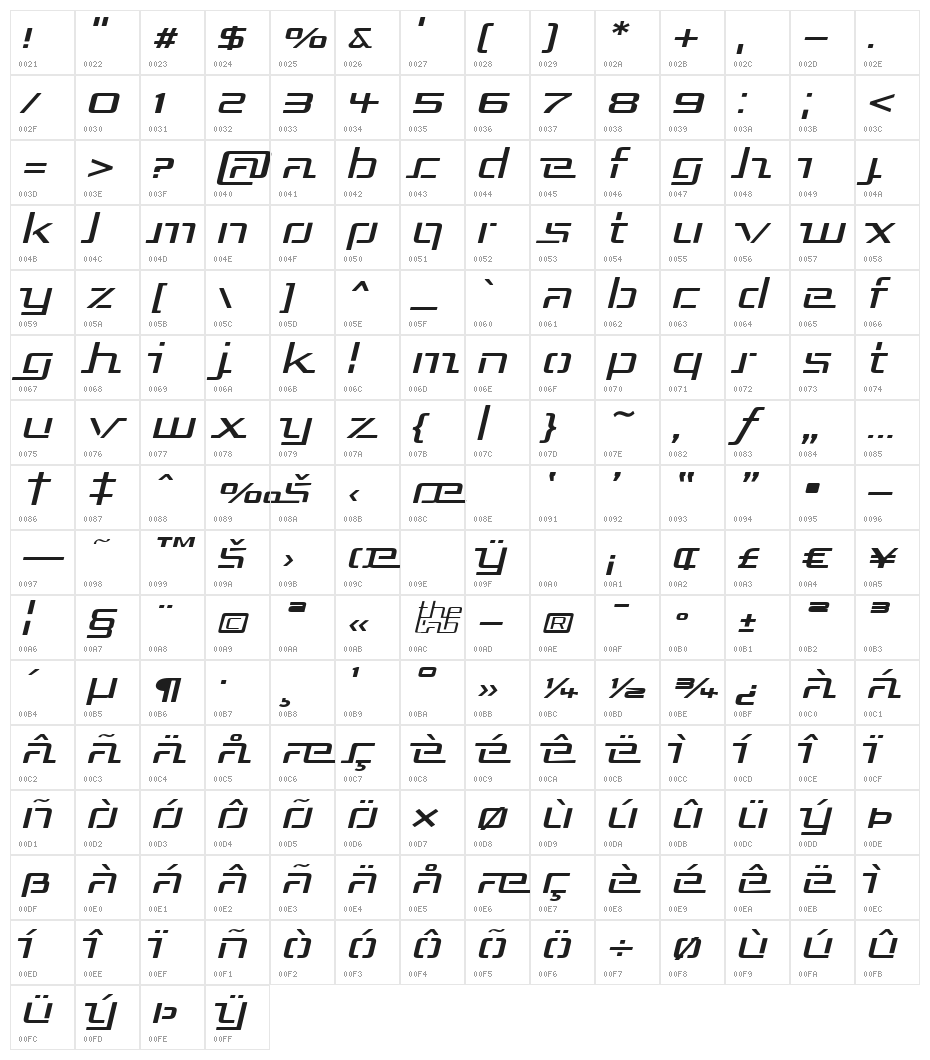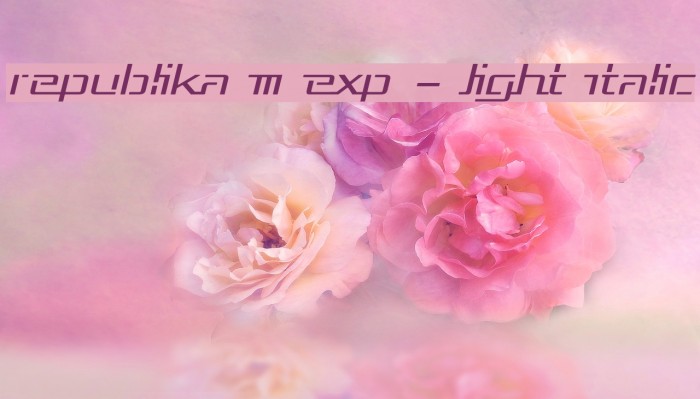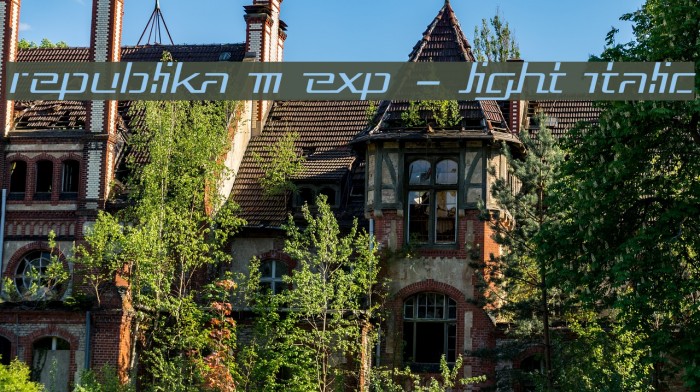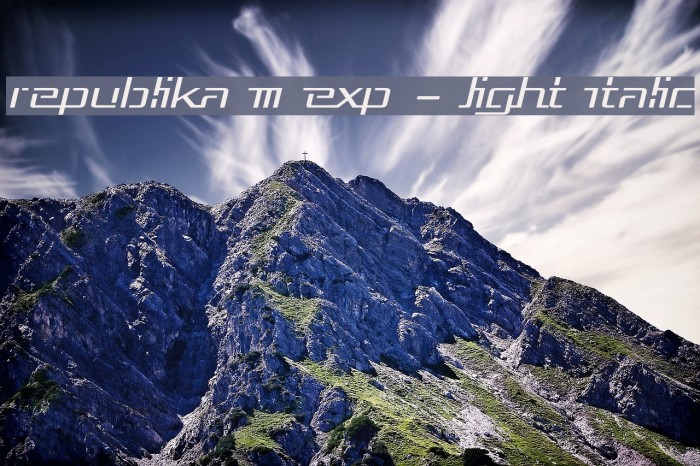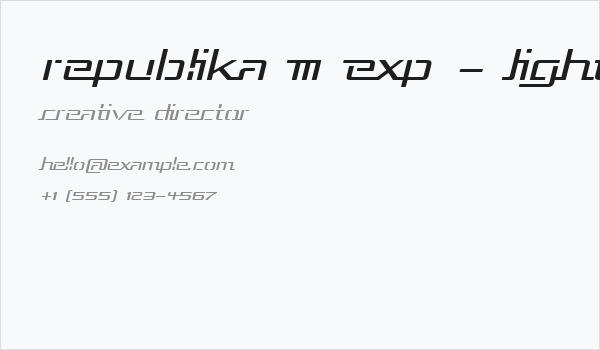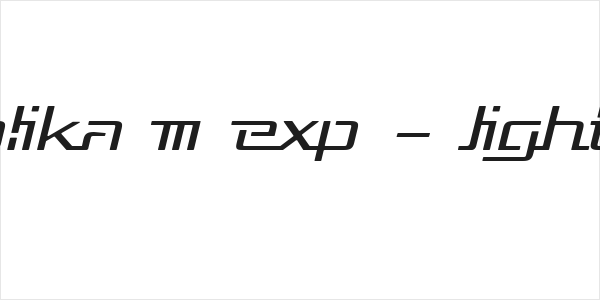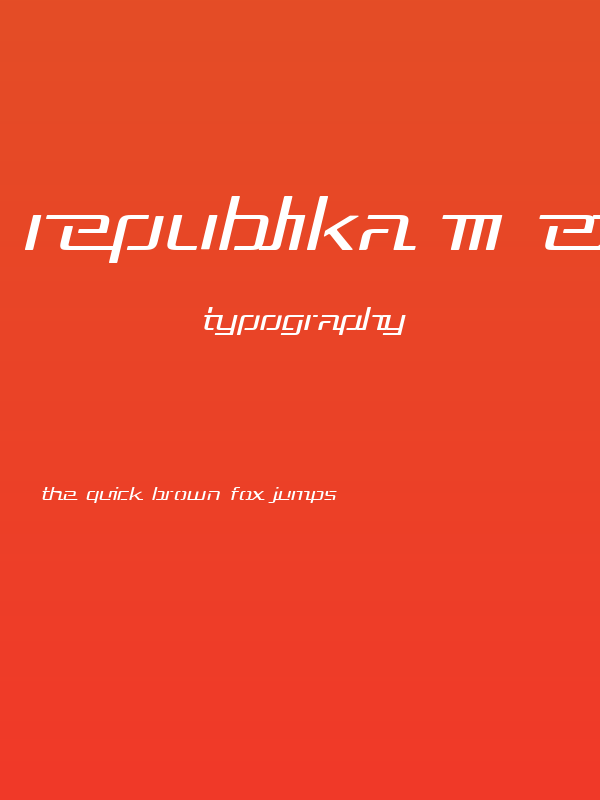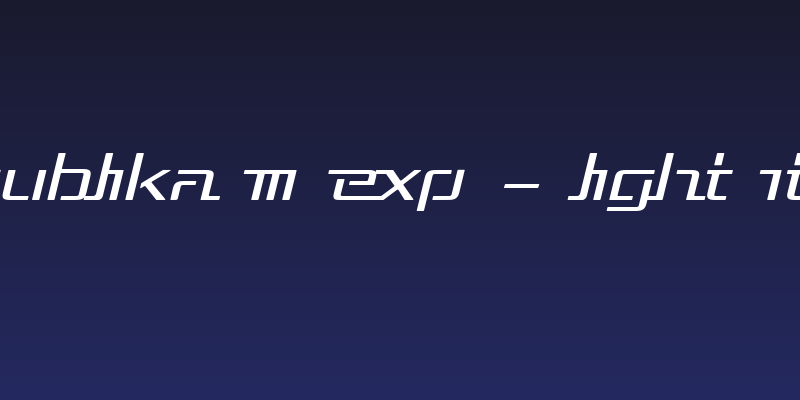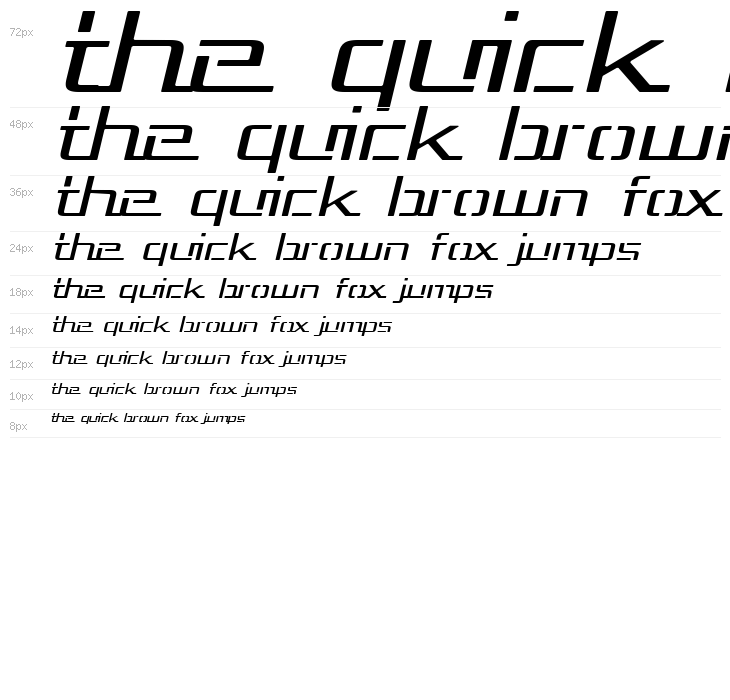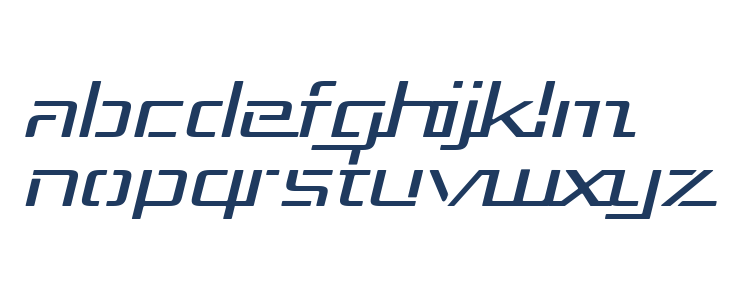
Republika III Exp - Light Italic Font
Republika III Exp - Light Italic Description
This font exhibits a sleek, futuristic design with a geometric structure. The characters are elongated and slightly slanted, giving an italicized appearance that enhances its dynamic feel. The strokes are consistent in weight, contributing to a clean and modern aesthetic. The font's expanded width allows for excellent readability, while the tight character spacing maintains a cohesive look. The overall style is distinctly modern, making it suitable for projects that require a contemporary and innovative touch.
| Proposed Projects | Ideal for technology branding, modern advertising, and innovative product packaging. |